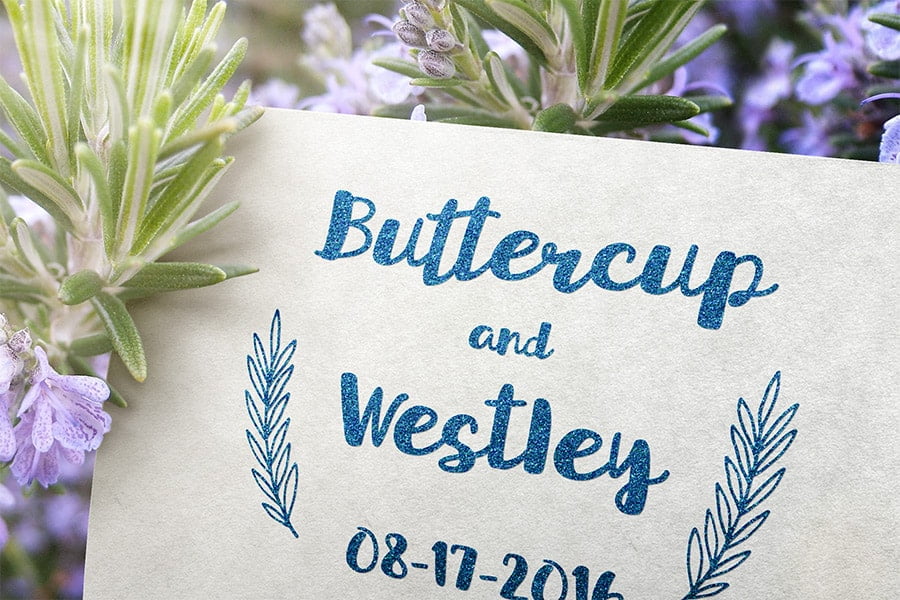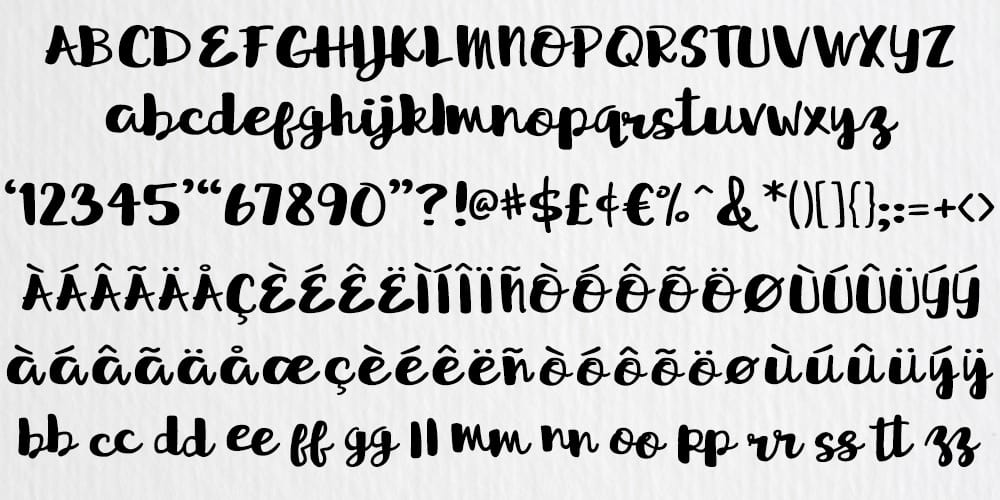
Sprightly Two
The process of teaching myself fontmaking continues! This time I’ve created my first script font with connections, using two weights of brushes in Adobe Illustrator. (Not all of the connections are perfect, but I’ve kerned quite a bit in here. Those fonts with perfect seamless connections? AMAZING. They must take epic amounts of time to create.)